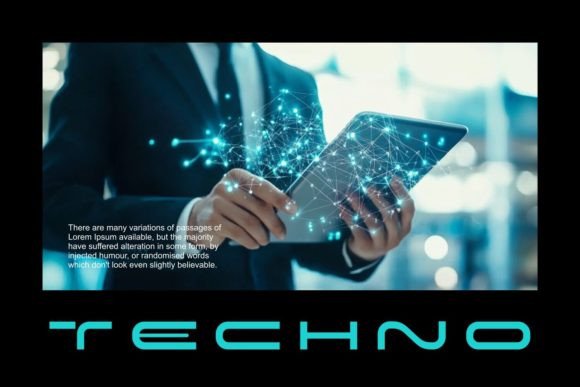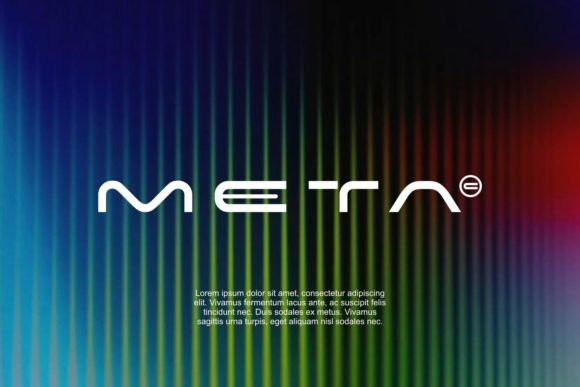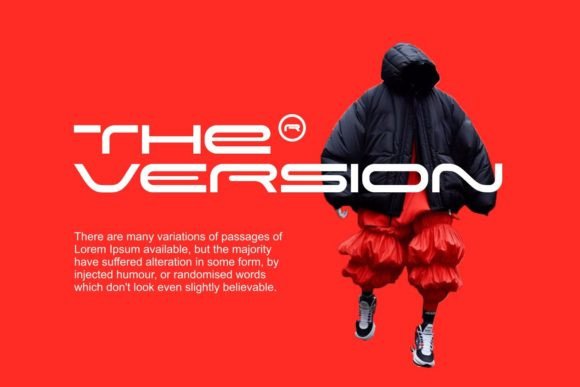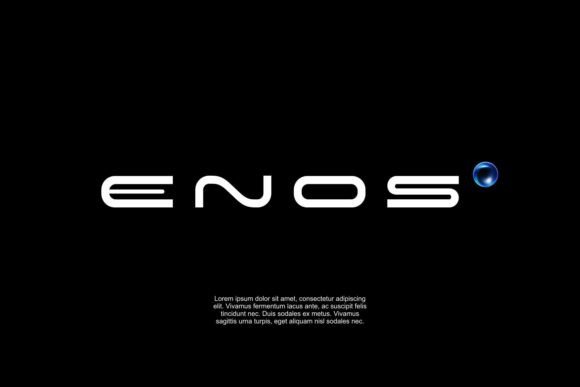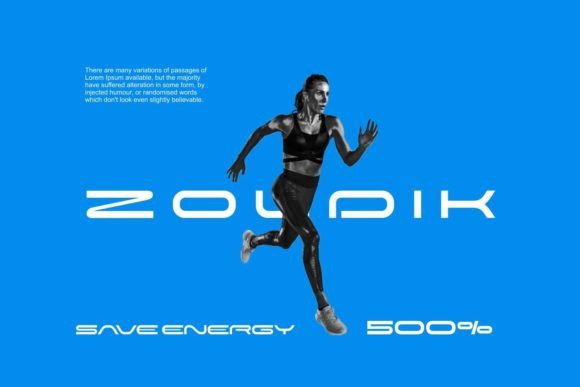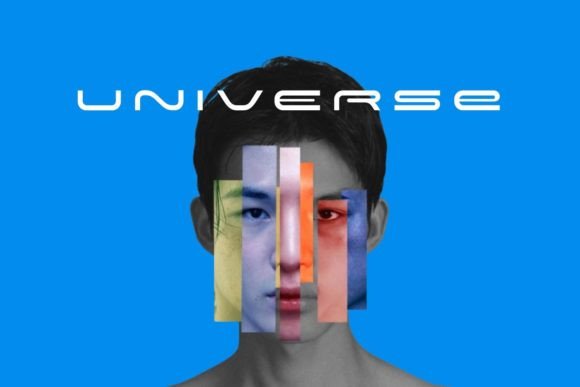
Introduction to Moren Font
Imagine you’re brainstorming ideas for your next sci-fi project, and suddenly, the perfect font strikes your mind. You envision a sleek, futuristic design that transports your audience to another world. This is exactly what the Moren Font can do for you. With its geometric, minimalist sans-serif style, this font is a game-changer for modern tech designs and creative projects.
As a designer, you’re constantly on the lookout for high-quality design resources that can elevate your work. The Moren Font is one such treasure that offers a free download with a transparent background, making it perfect for logos, websites, and branding. Its versatility and stylish aesthetic make it a valuable addition to any design arsenal.
In this article, we’ll delve into the world of the Moren Font, exploring its features, benefits, and why it’s a must-have for designers looking to create stunning, futuristic designs.
Key Features of Moren Font
- Includes a range of characters, including uppercase and lowercase letters, numbers, and symbols
- Comes in a single font size, making it easy to use in various design contexts
- Perfect for graphic designers, digital artists, and anyone looking for a unique and stylish font for their creative project
Honest Review: Moren Font
As a designer, I’m always on the lookout for high-quality design resources that can elevate my creative projects. The Moren Font is one such find that I’d like to share with you.
What works well: ✨ The Moren Font is a beautifully crafted font that offers a unique, elegant feel to any design project. Its high quality and versatility make it an excellent addition to any design toolkit. Plus, it’s free to download, making it an amazing resource for designers on a budget.
However, there are some limitations to consider: ⚠️ The Moren Font is only available in a limited number of weights, which may not be suitable for all design projects. Additionally, some users may find the font’s unique style a bit too quirky for their taste.
Overall, I’m impressed with the Moren Font’s potential to enhance creative projects. Its high quality and transparent background options make it a valuable design resource. If you’re looking for a unique and elegant font to add some flair to your designs, the Moren Font is definitely worth checking out.
Moren Font
Tips for Getting the Most Out of Moren Font
To get the most out of Moren Font, use it with a transparent background to create a clean and modern design. You can also experiment with different font sizes and styles to add visual interest to your designs.
Moren Font is perfect for creative projects, such as logos, brochures, and social media graphics. It’s also great for use in presentations, reports, and other business documents.
Is Moren Font suitable for high-quality design projects?
Yes, Moren Font is designed to meet the demands of high-quality design projects. Its high-quality design and transparent background make it an excellent choice for designers working on creative projects that require a premium look and feel.